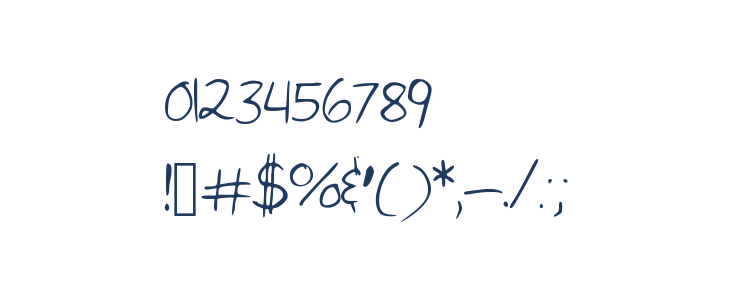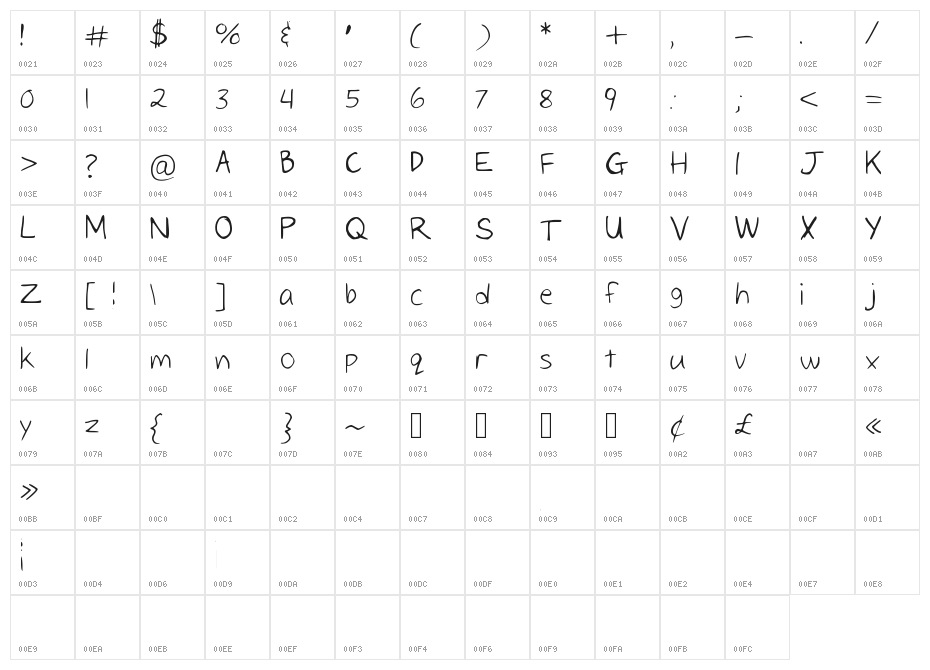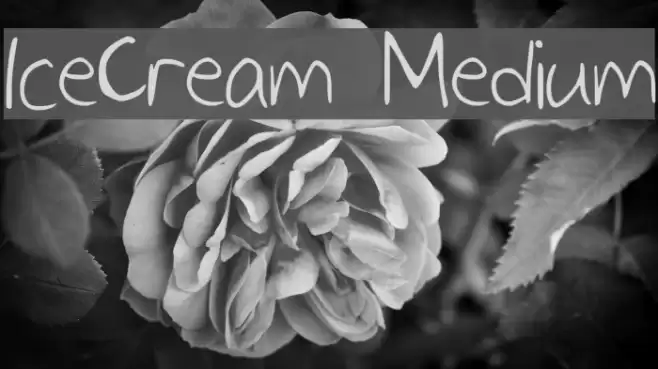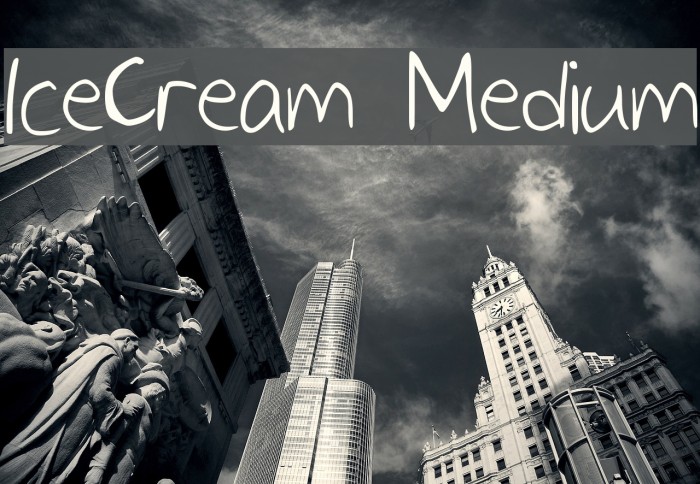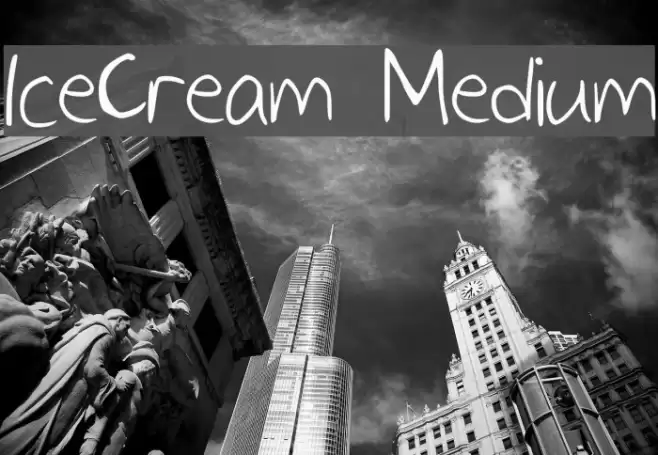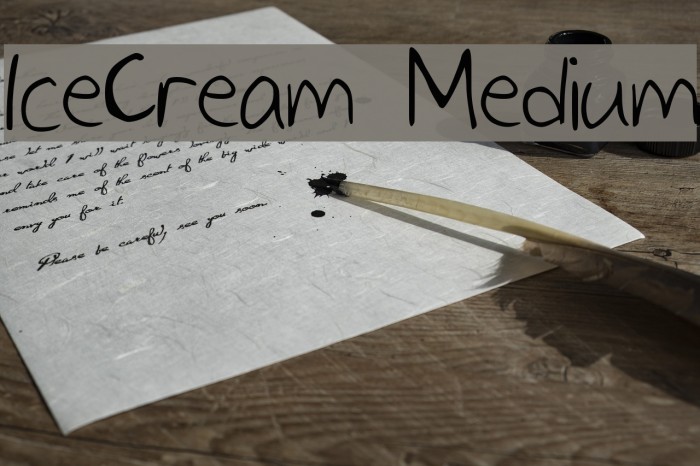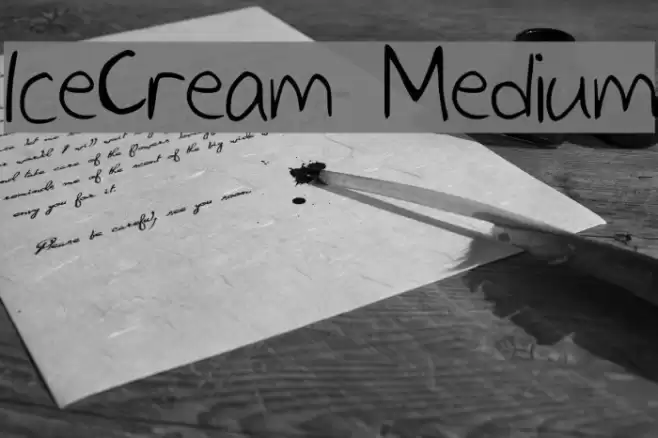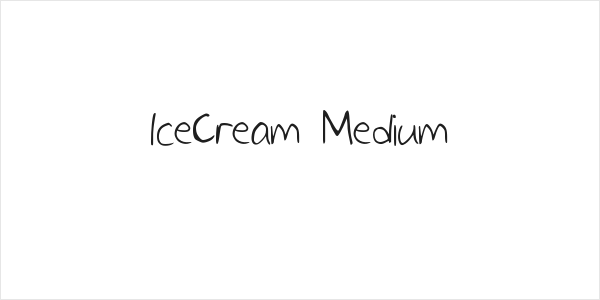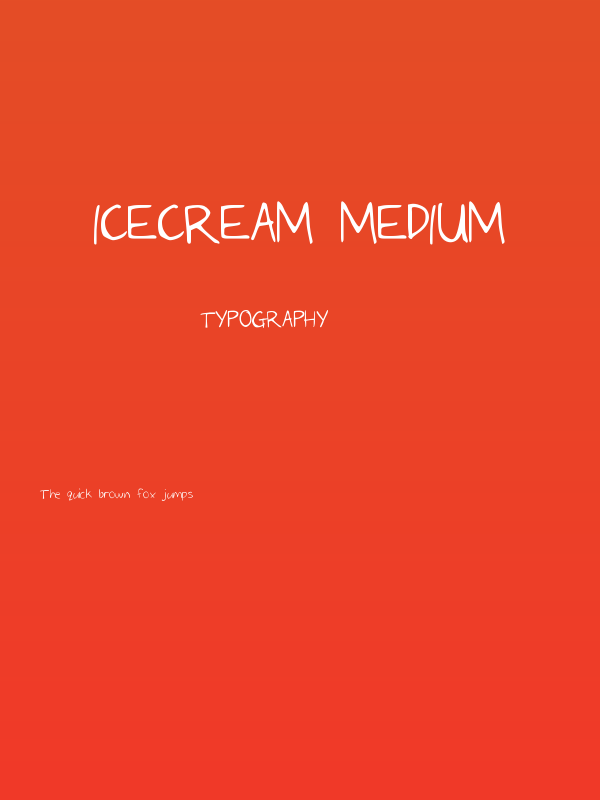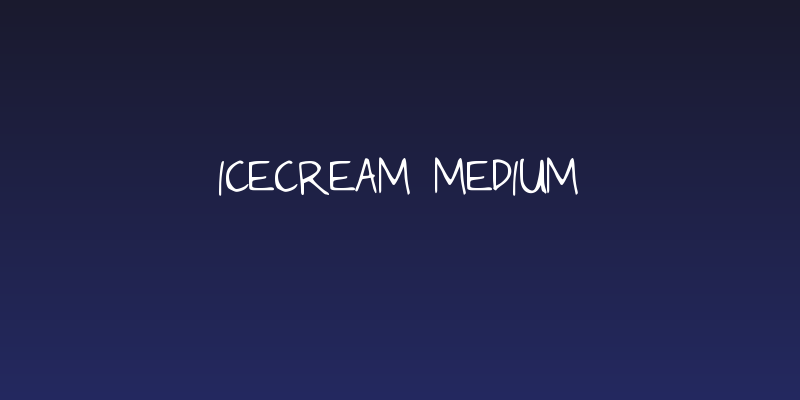
IceCream Medium Font
IceCream Medium Description
This font features a playful and casual handwritten style, characterized by its smooth, flowing lines and slightly irregular shapes. The letters have a natural, organic feel, with rounded edges and a consistent stroke width that gives it a friendly and approachable appearance. The uppercase and lowercase letters are well-balanced, maintaining a cohesive look throughout. The numerals and special characters are designed to match the overall style, ensuring versatility in various design contexts. This font is perfect for projects that require a personal touch or a relaxed, informal vibe.
| Proposed Projects | Ideal for greeting cards, invitations, children's books, and casual branding projects. |